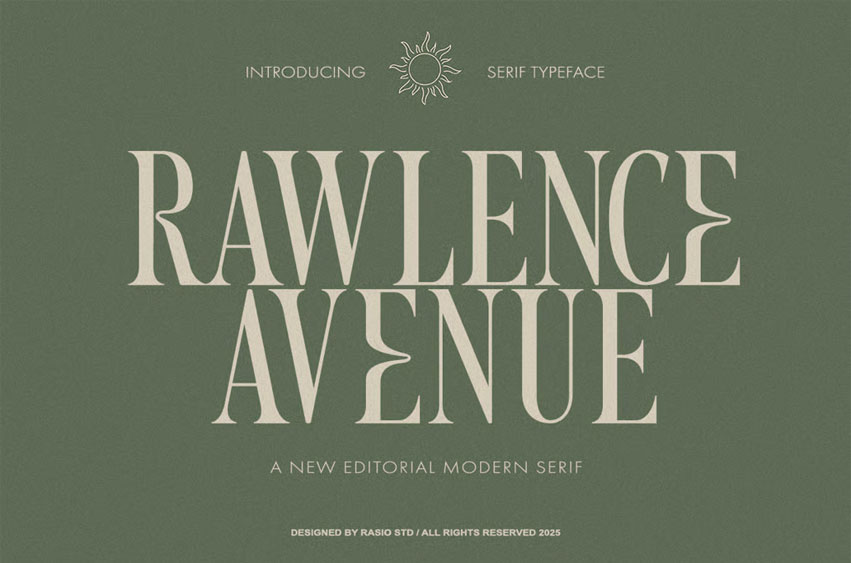
Rawlence Avenue Font is a modern editorial serif font characterized by tall, elegant proportions and sharp contrast. The font blends timeless classic serif elements with a refined contemporary touch, making it perfect for luxury branding, magazine headlines, and high-end visual compositions. Its sculpted terminals and elongated serifs evoke sophistication and authority, creating a bold typographic statement for any design that requires editorial excellence and modern artistry.
Relevance and Use Cases are perfect for editorial headlines, magazine layouts, luxury branding, posters, advertising campaigns, packaging design, book titles, and creative identity projects seeking a blend of modernity and timeless serif sophistication.
Enhance your editorial and branding visuals with Rawlence Avenue Modern Editorial Serif Font — a sophisticated blend of luxury style and typographic precision crafted for designers who value timeless elegance.